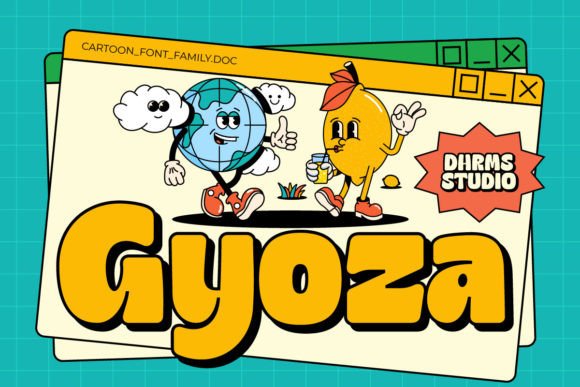
Introducing Gyoza Font: A Playful and Versatile Typeface Inspired by 90’s Cartoons and Comic Books
In the world of typography, fonts play a crucial role in bringing designs to life. With the ever-evolving landscape of graphic design, it’s essential to have access to unique and versatile typefaces that can elevate your work. Meet Gyoza Font, a modern and playful typeface that was designed in late 2022 and published in January 2023. Inspired by the nostalgia of 90’s cartoons and comic books, Gyoza is the perfect addition to your design arsenal.
The Inspiration Behind Gyoza
Gyoza’s design is rooted in the fun and playfulness of 90’s cartoons and comic books. The typeface’s creator aimed to capture the essence of this era, characterized by bold lines, vibrant colors, and whimsical characters. The result is a font that exudes a sense of nostalgia and playfulness, making it ideal for designs that require a touch of personality.
Key Features of Gyoza Font
Gyoza Font boasts an impressive range of features that make it an excellent choice for designers and crafters. Some of its key features include:
- Variable Fonts in Weights: Gyoza comes with variable fonts in weights, allowing you to experiment with different styles and tones to suit your design needs.
- Ink Trap Style: The Ink Trap style adds an extra layer of personality to the font, with more extreme space on the Ink Trap, creating a unique and eye-catching effect.
- Complete Anatomy: The regular style of Gyoza features the correct anatomy of the fonts, ensuring that your designs look polished and professional.
- Comprehensive Character Set: Gyoza contains everything you need to create stunning typography, from headline fonts to body text fonts, all in one place.
Endless Design Possibilities with Gyoza
Gyoza Font is an incredibly versatile typeface that can be used for a wide range of design projects. Whether you’re a seasoned designer or just starting out, Gyoza has everything you need to create stunning typography. Here are some design possibilities to explore:
- Logotype and Branding: Use Gyoza to create eye-catching logos and branding materials that showcase your personality and style.
- Title and Packaging: Gyoza’s bold and playful style makes it perfect for titles, packaging, and product design.
- Modern and Vintage Designs: The font’s unique blend of modern and vintage elements makes it suitable for a wide range of design styles, from minimalist to elaborate.
- Pairing with Graphic Elements: Gyoza pairs beautifully with graphic elements like illustrations and photography, allowing you to create visually striking designs.
In conclusion, Gyoza Font is a unique and versatile typeface that is sure to elevate your designs. With its playful and nostalgic inspiration, comprehensive character set, and endless design possibilities, Gyoza is an excellent choice for designers and crafters. So take the first step and experience the power of Gyoza for yourself.